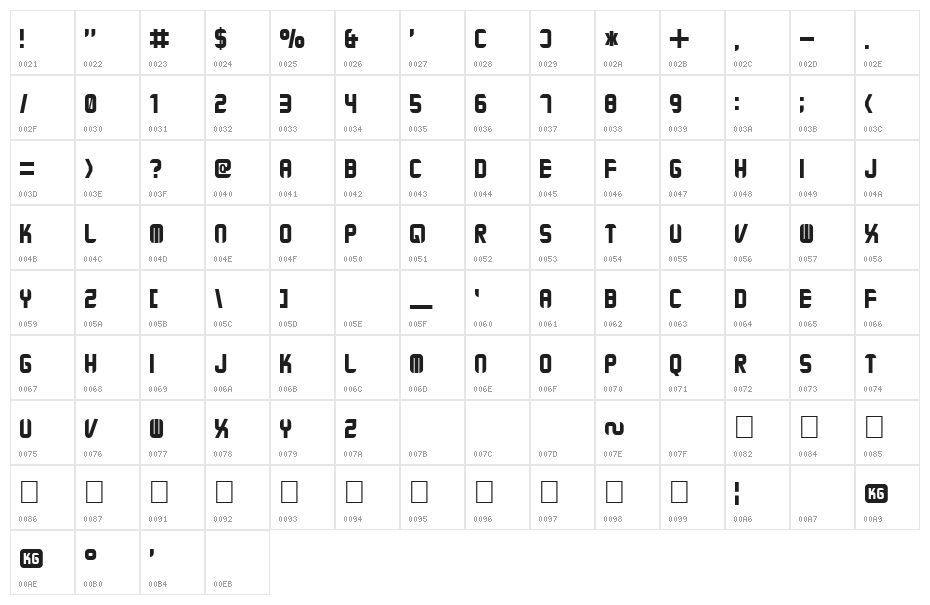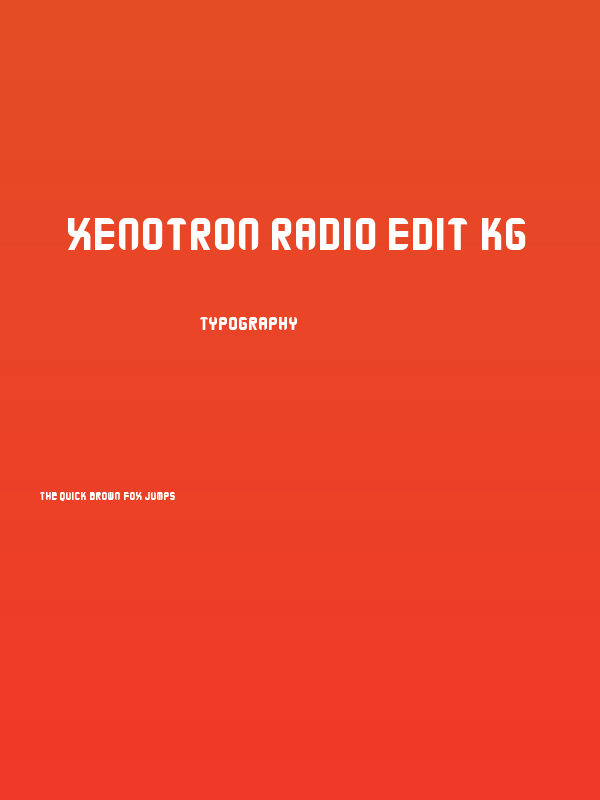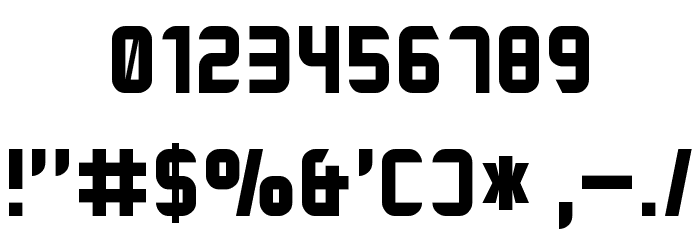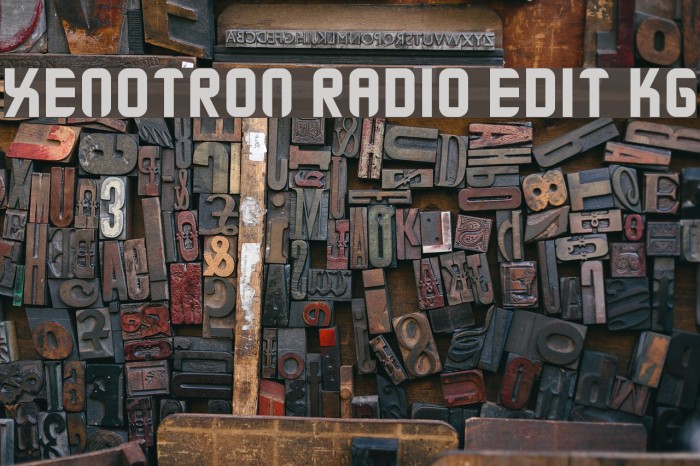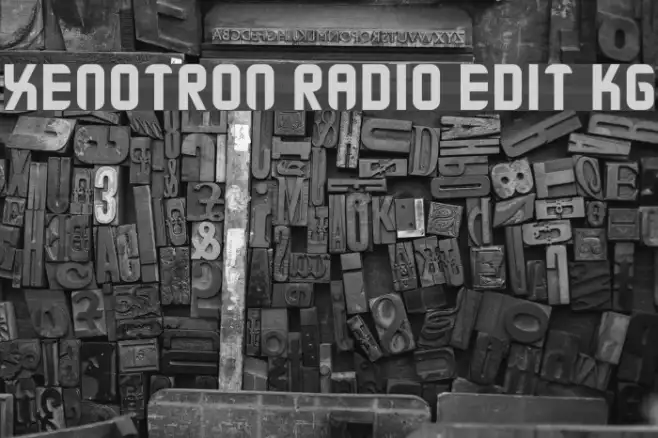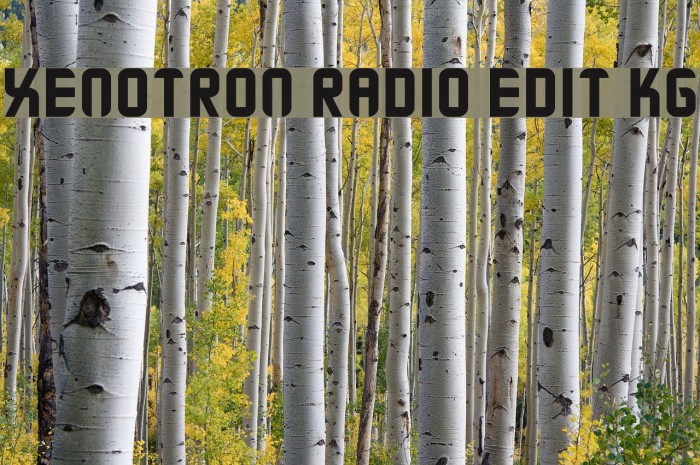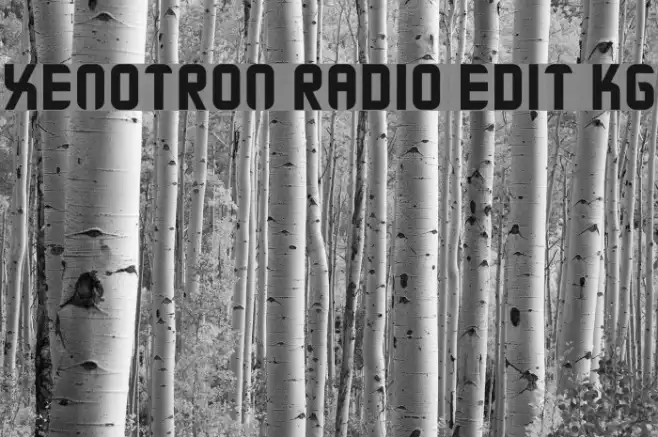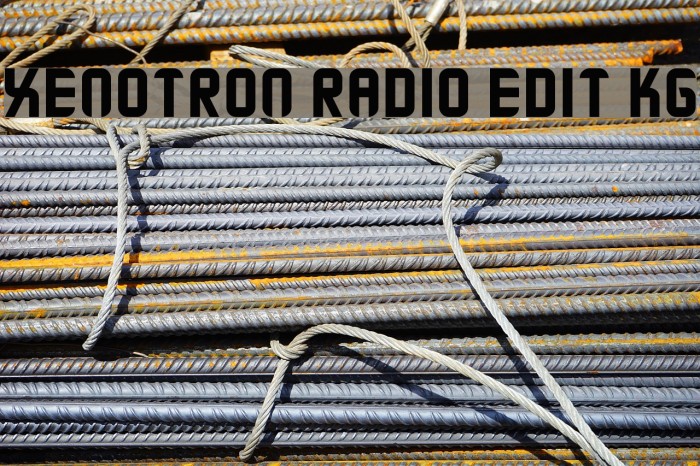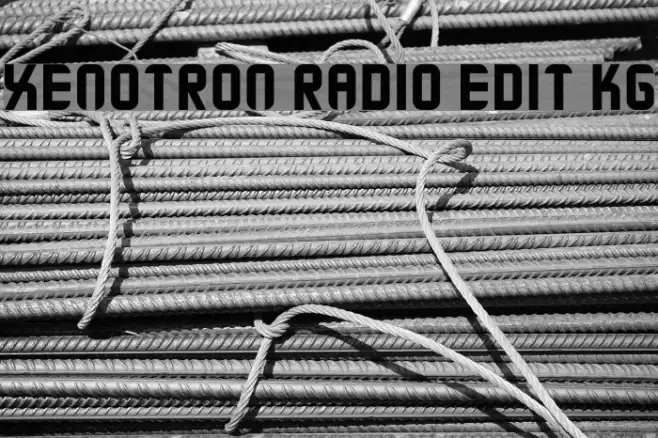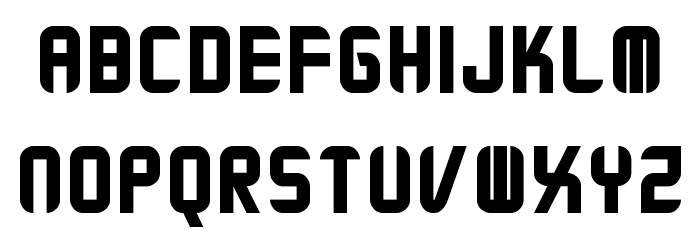
Xenotron Radio Edit KG Font
Xenotron Radio Edit KG Description
This font features a bold, futuristic design with geometric shapes and a strong presence. The characters are uniformly thick, with rounded edges and a consistent stroke width that gives it a modern and technological feel. The uppercase letters are distinct and easily recognizable, while the lowercase letters maintain a similar style, ensuring readability. The numbers and special characters are designed to match the overall aesthetic, making it suitable for digital and print media. The font's unique style makes it stand out, perfect for projects that require a modern and innovative look.
| Proposed Projects | Ideal for technology branding, video game titles, sci-fi movie posters, and digital interfaces. |